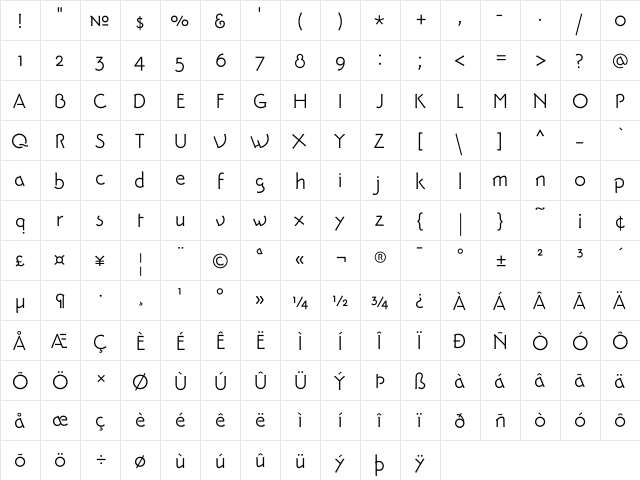
PykesPeakZero Regular
| Designer | James Arboghast |
Design Context for PykesPeakZero Typeface
PykesPeakZero offers clean, dependable letterforms without strong stylistic allegiance, making it a practical choice for designers who need flexibility.